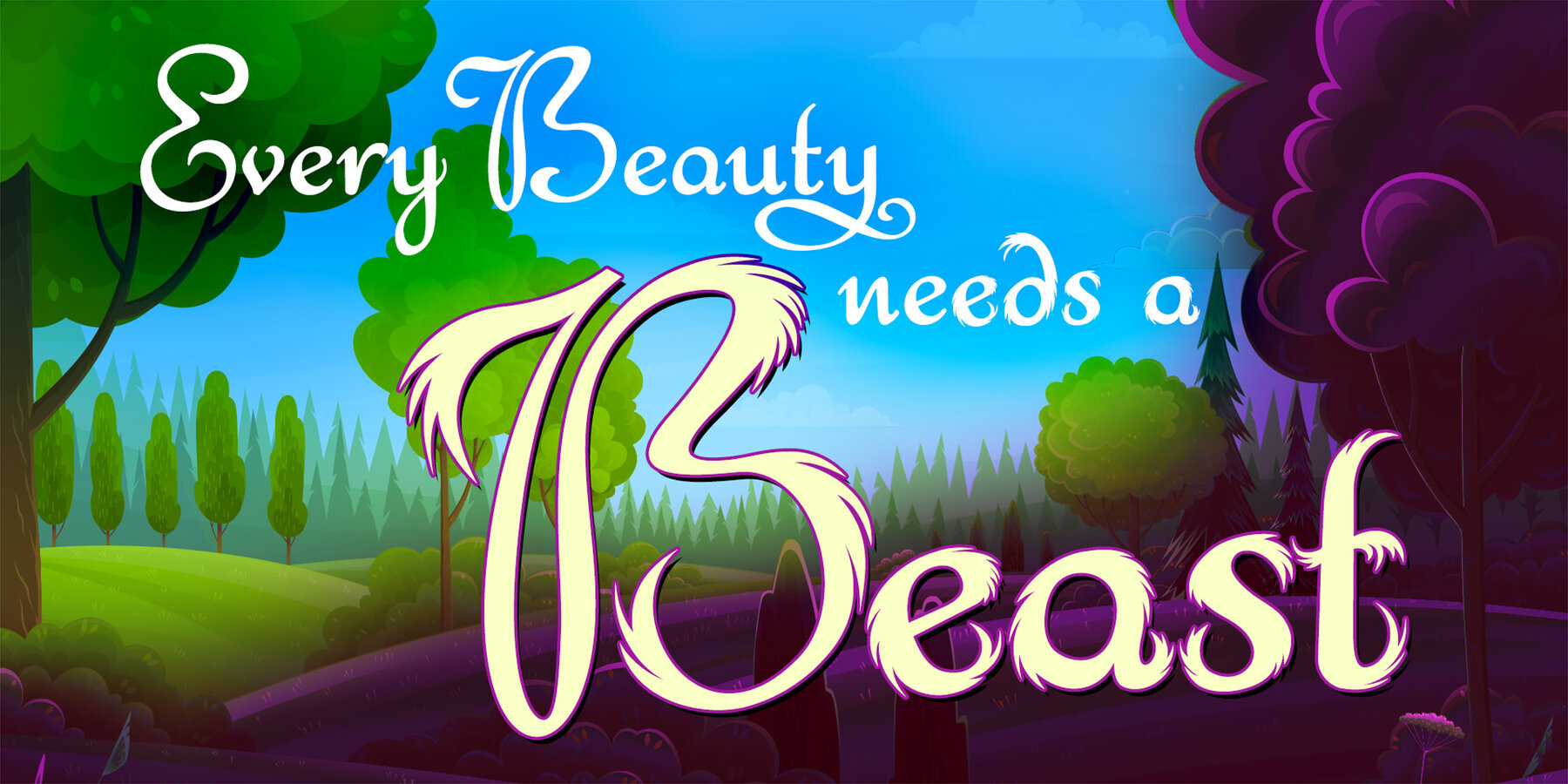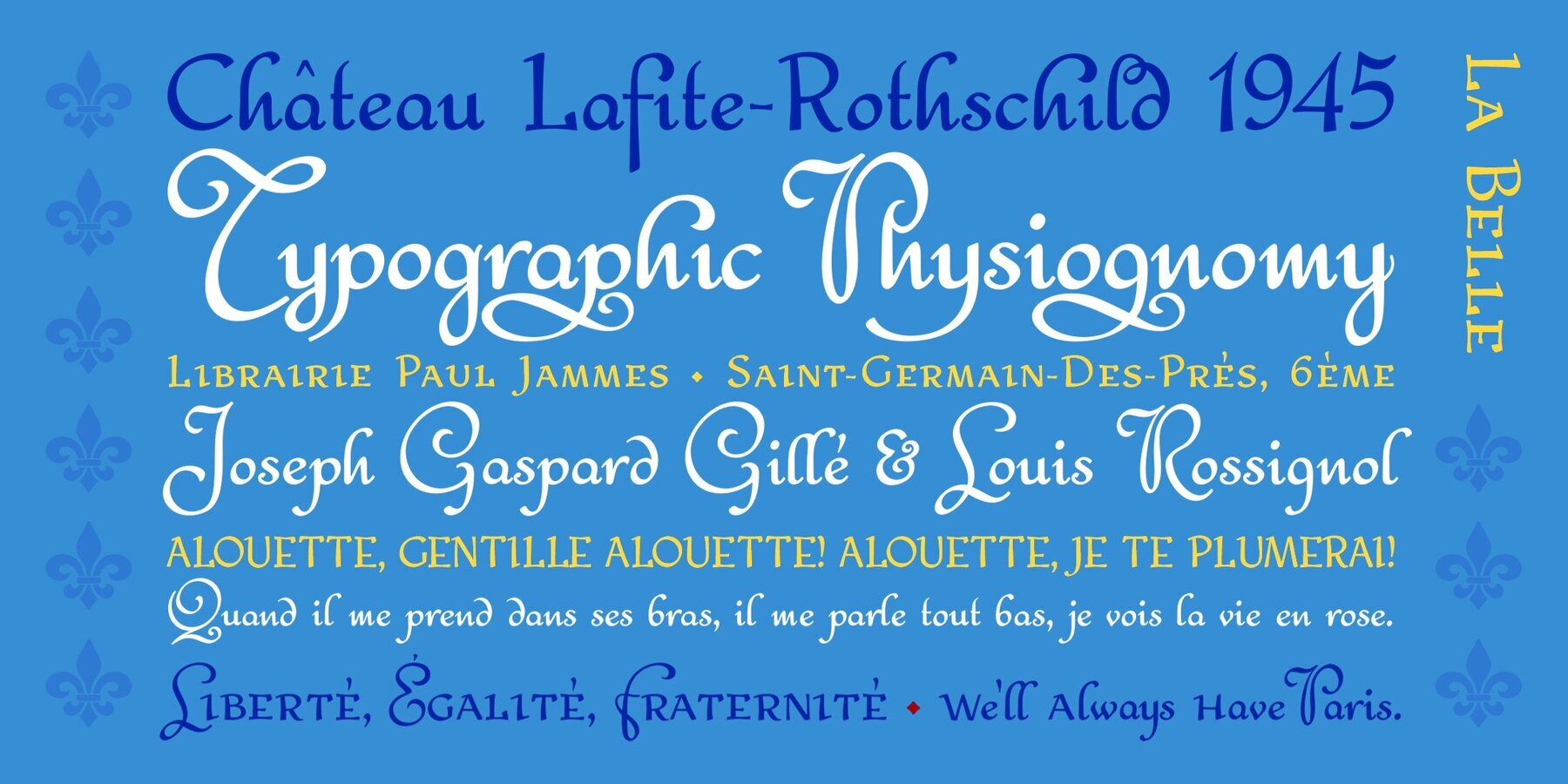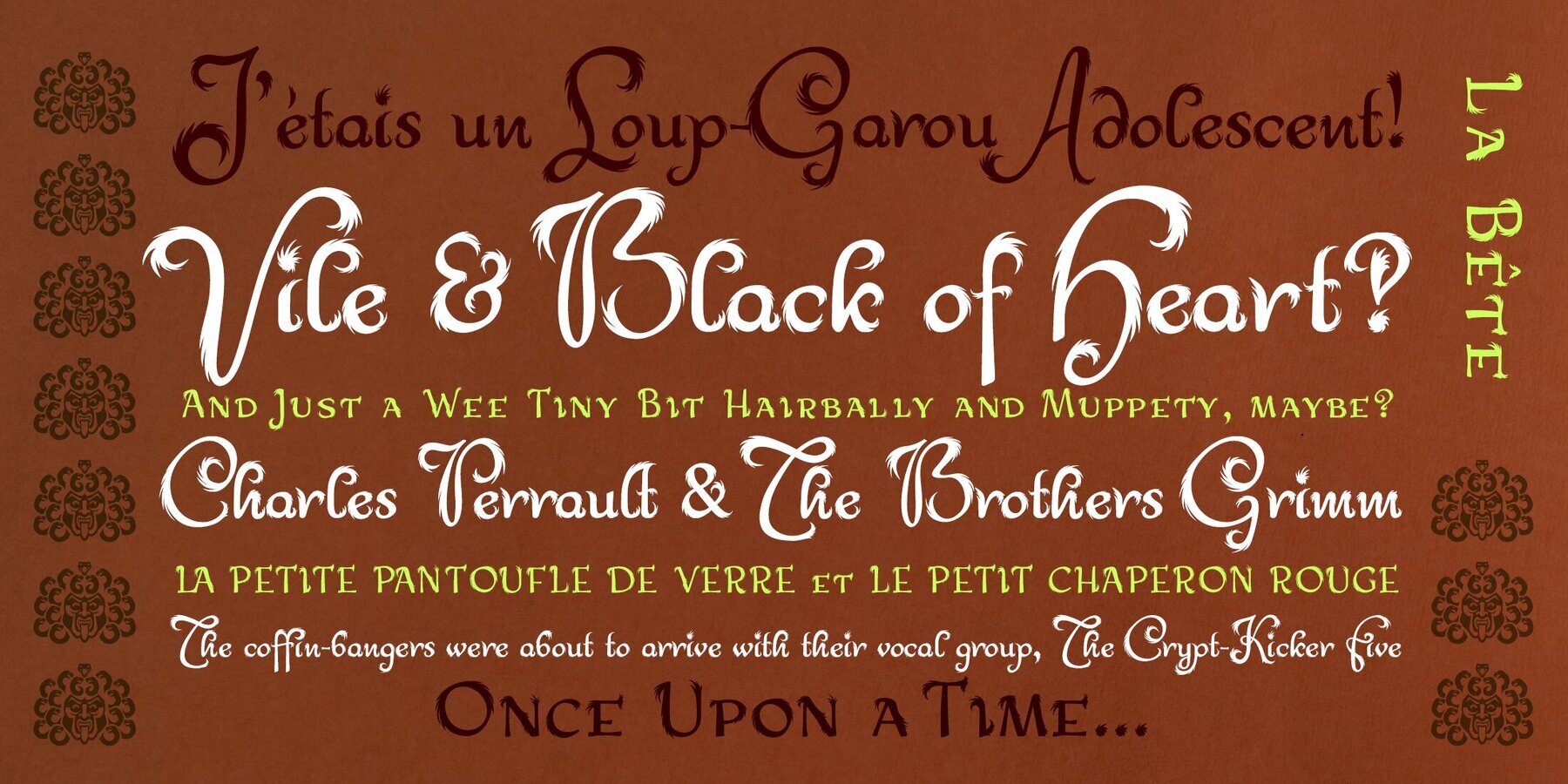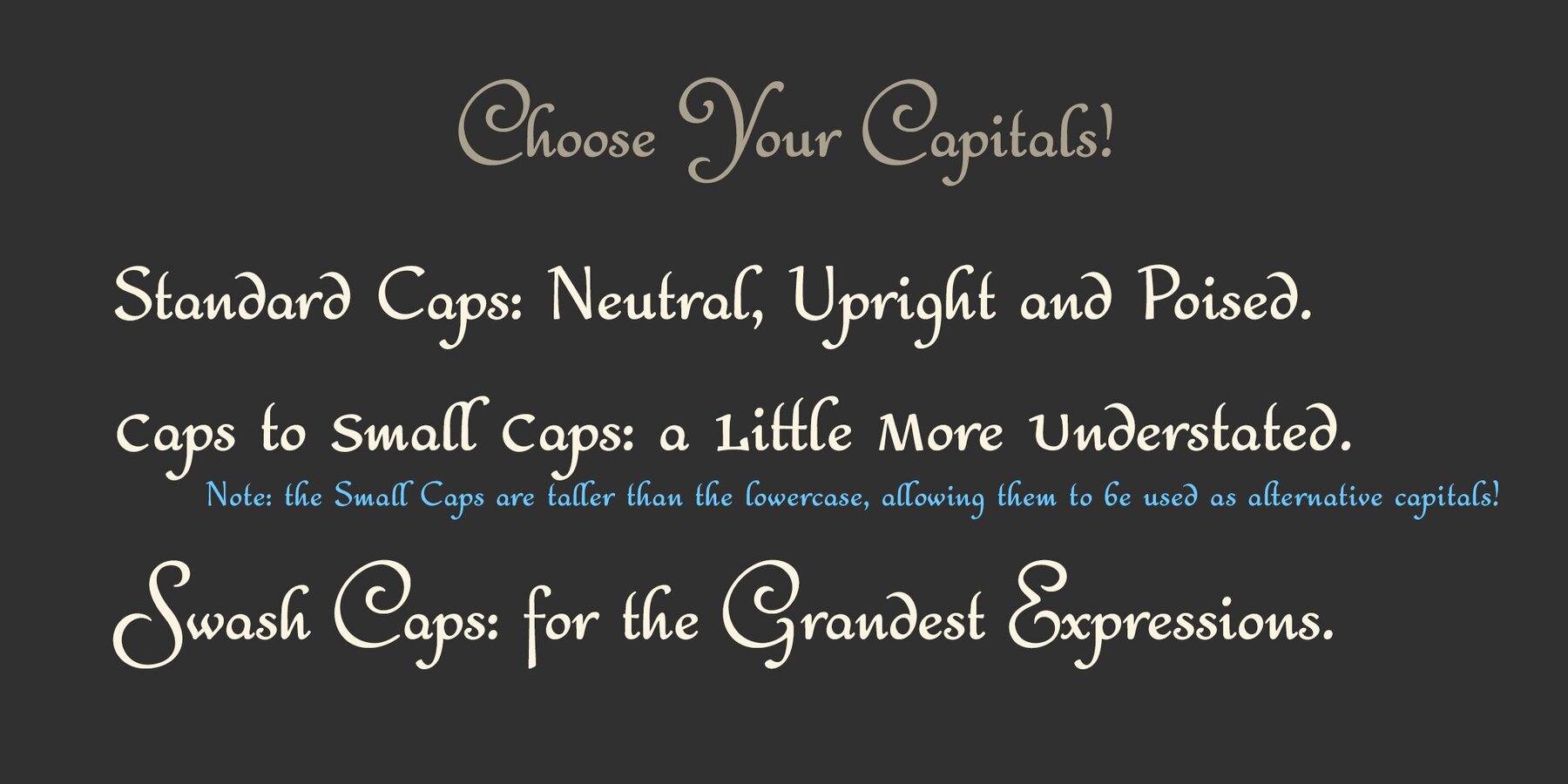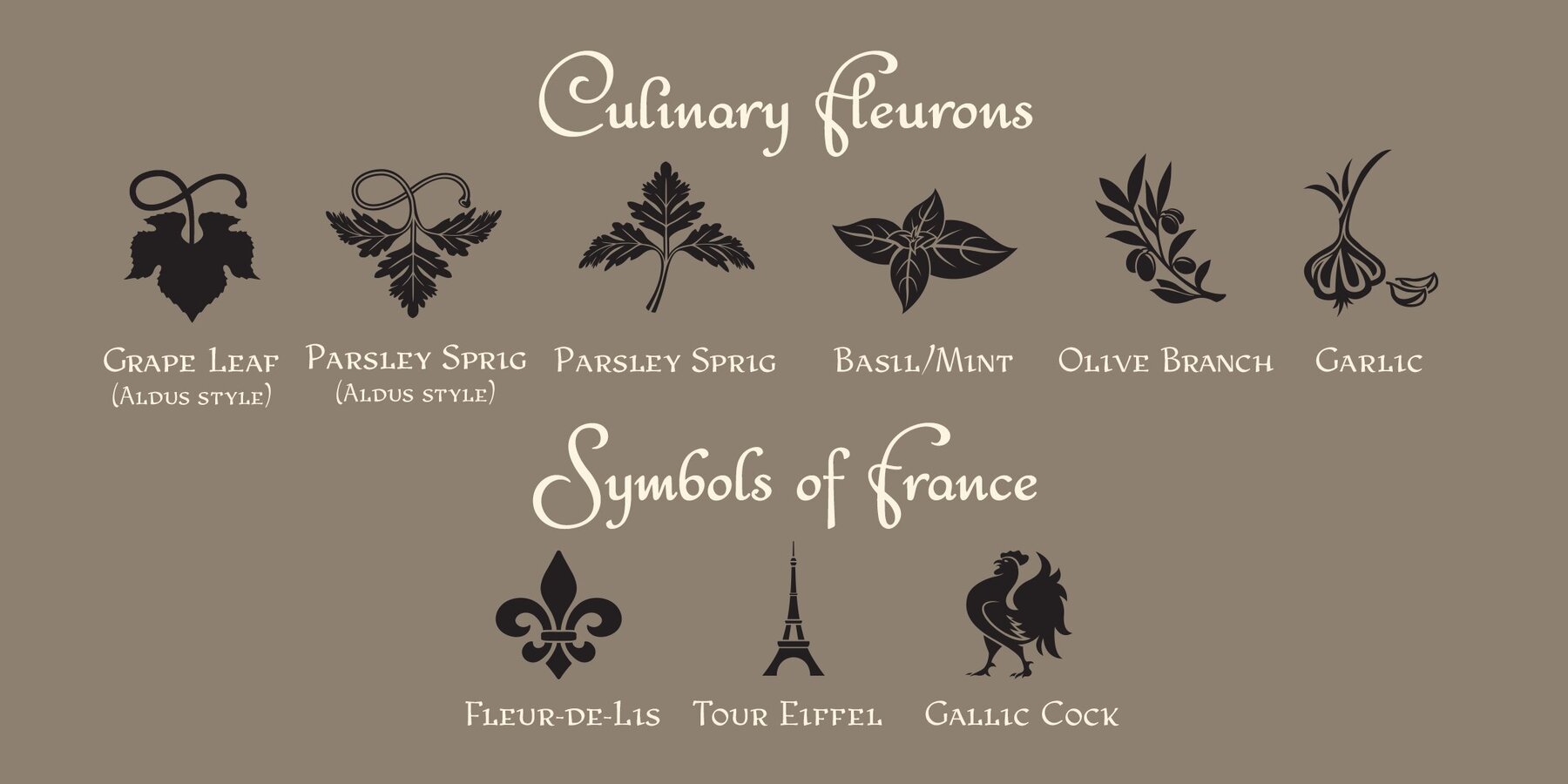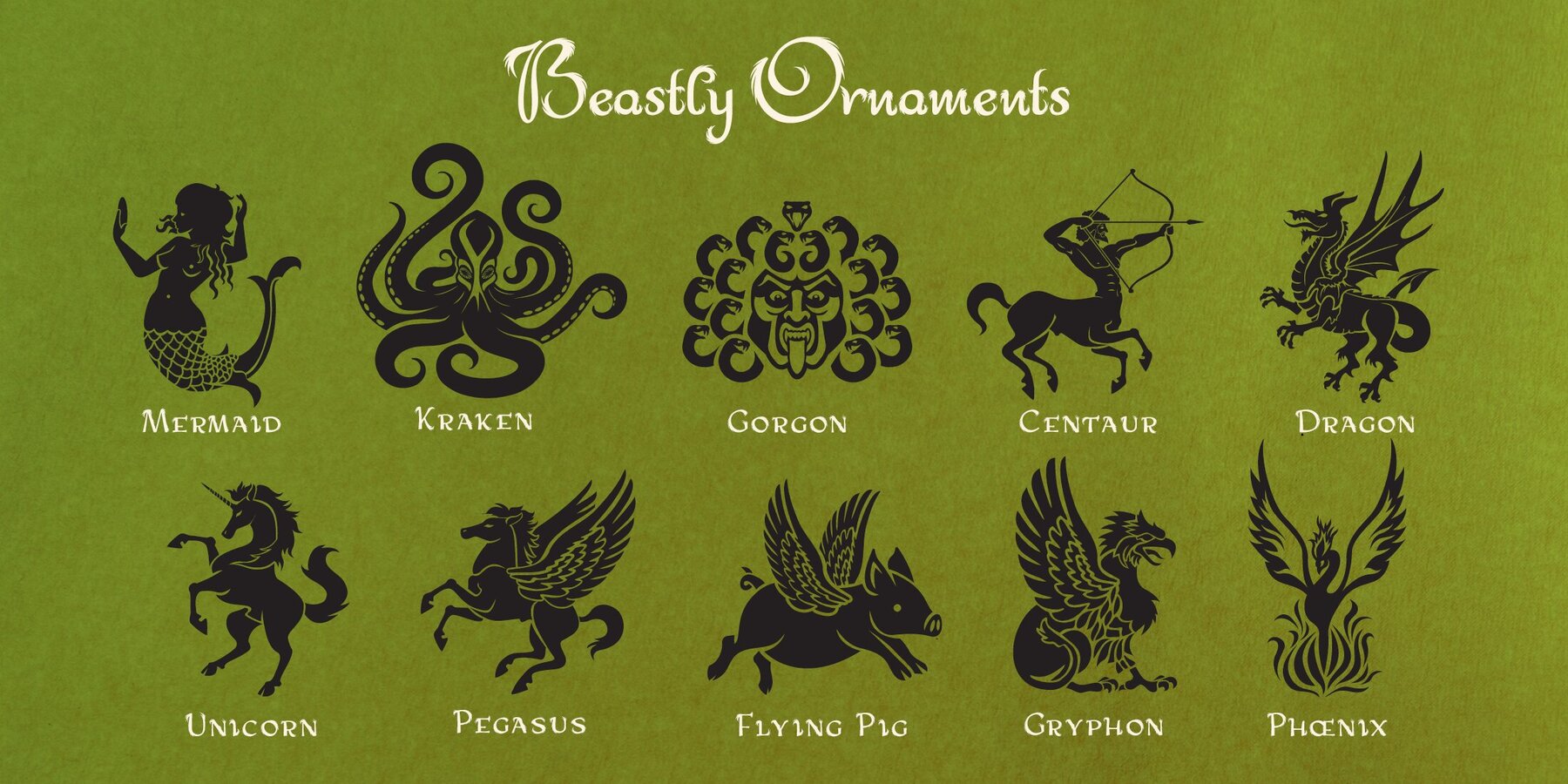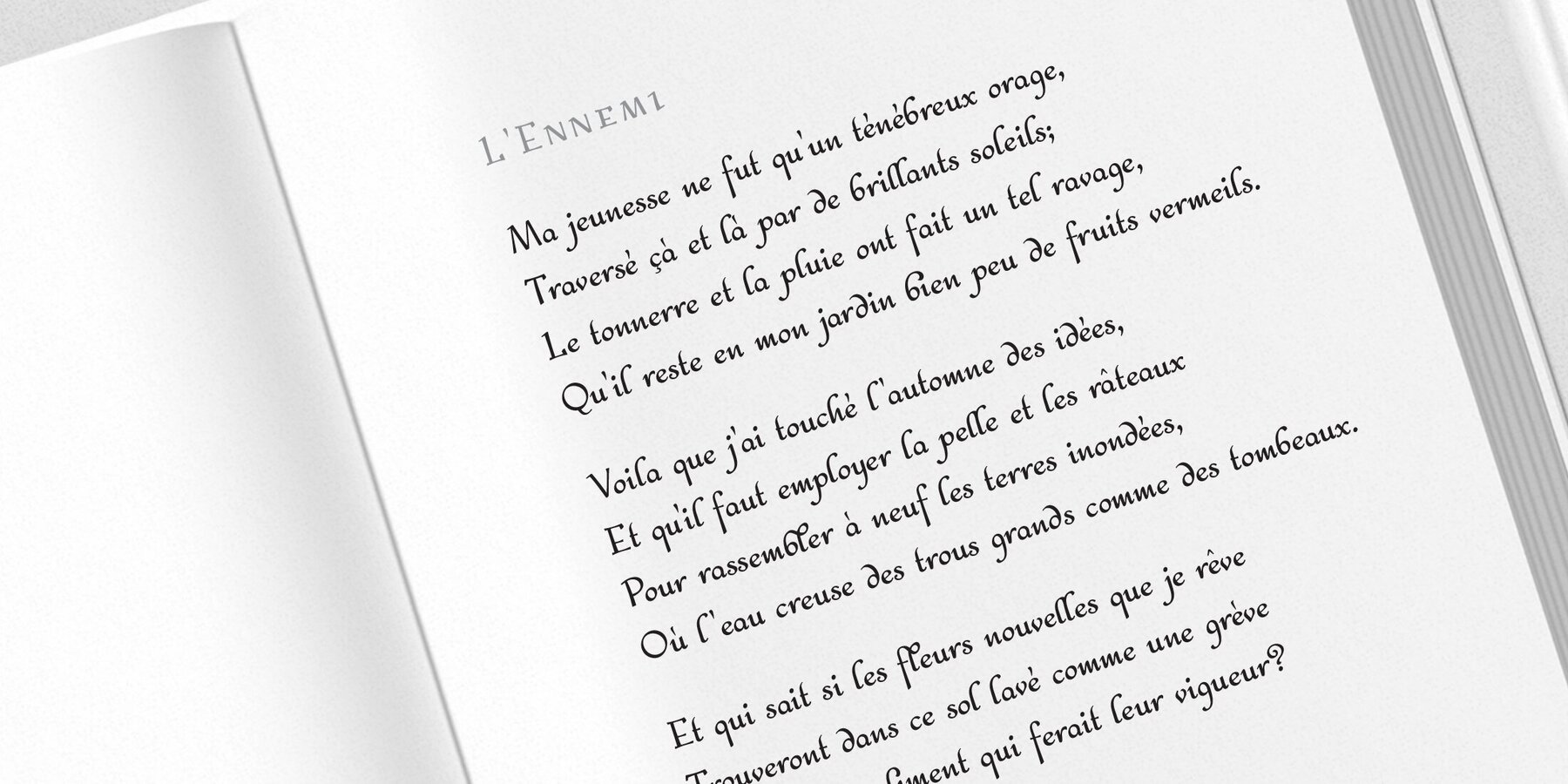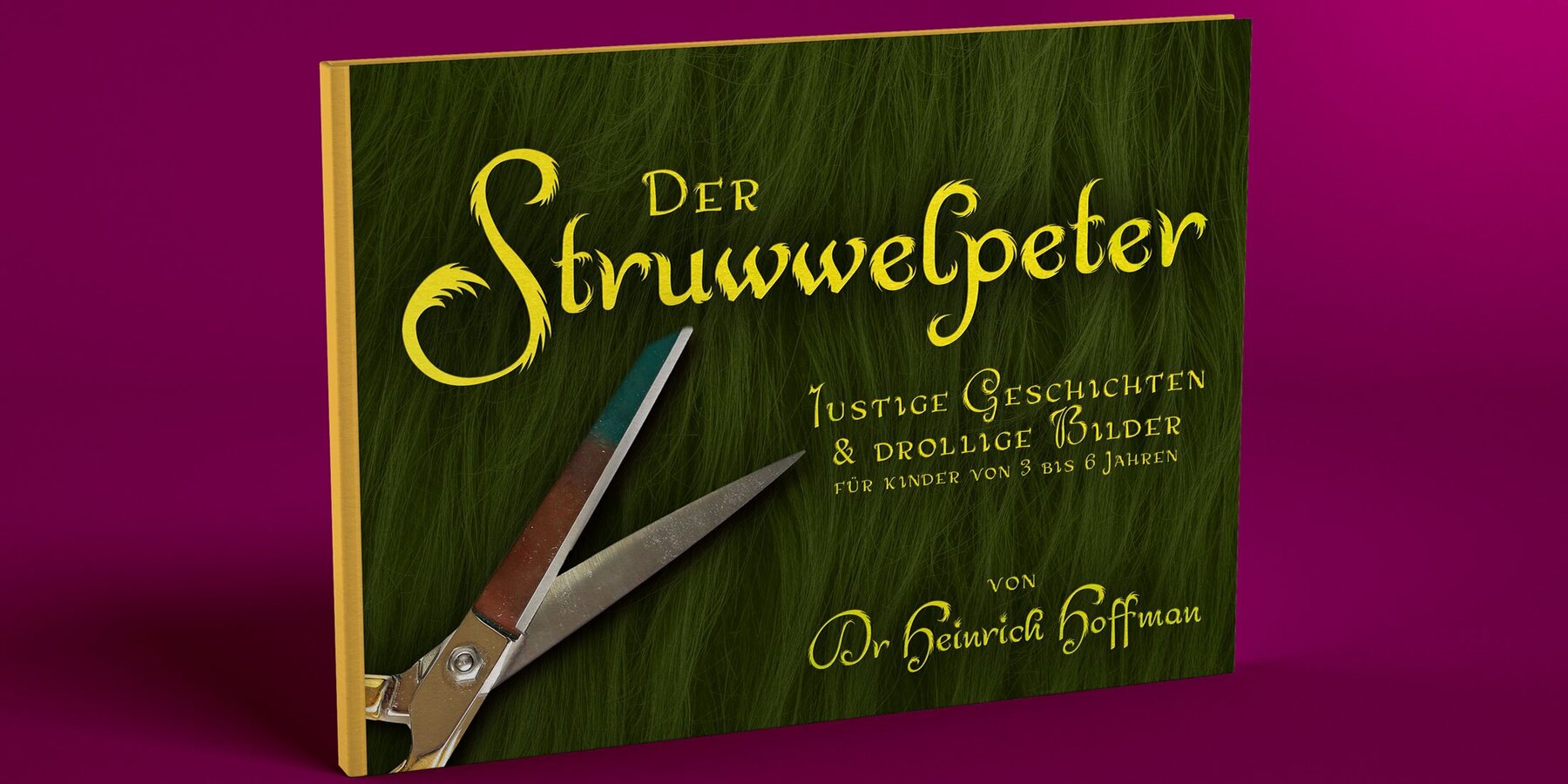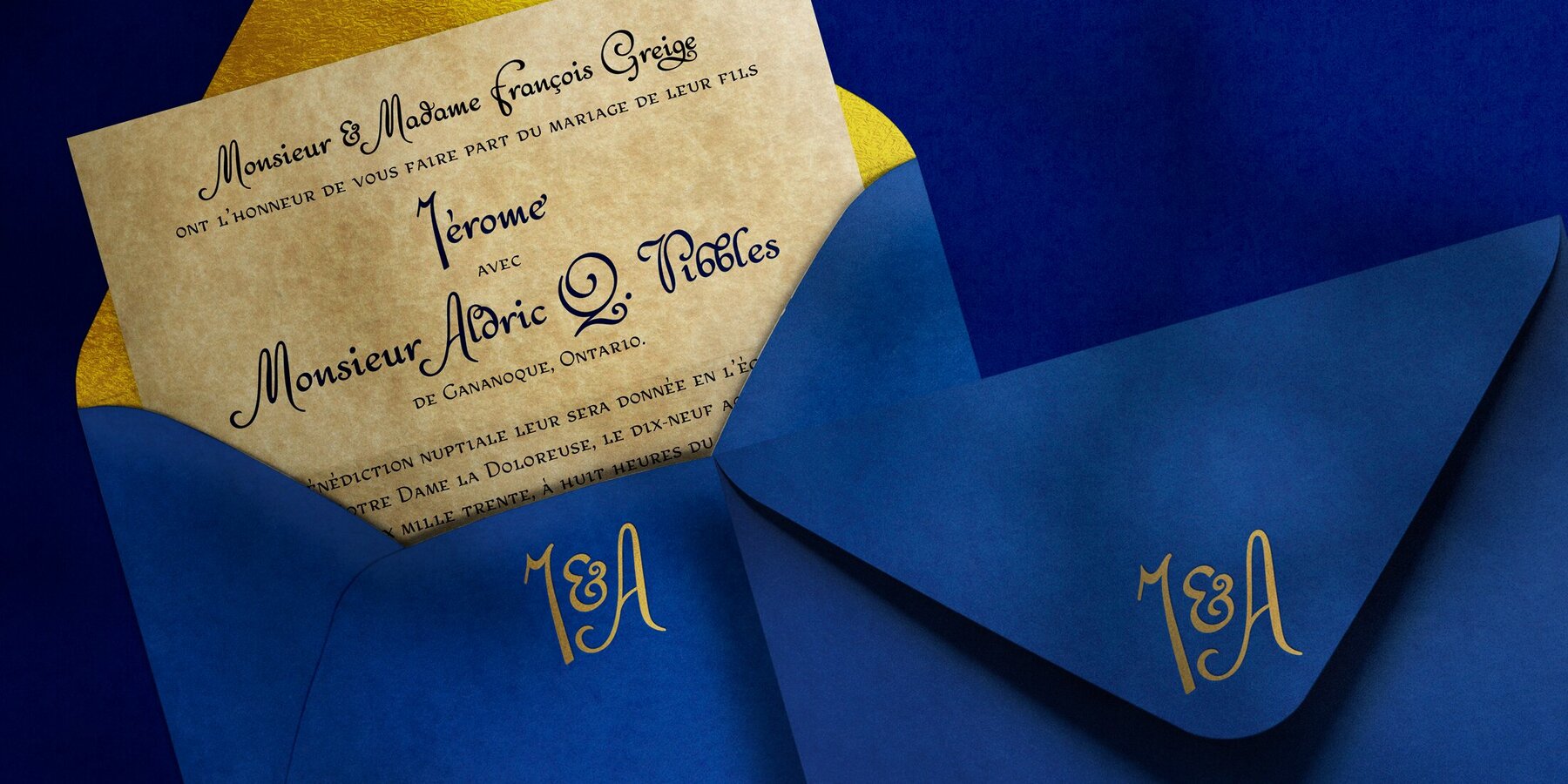
Bex Script Font
Bex Script is a riff on traditional French script forms: the Bâtarde, the Ronde, and the Coulée.
It has two versions: First, there’s La Belle, a straightforward, lovely interpretation of the script form, suitable for things like invitations, poetry and branding. La Belle’s evil twin is La Bête, a more whimsical (and considerably more hairy) version, great for anything that requires an elegant-but-beastly feel.
Bex is surprisingly versatile! With three optional capital forms (Swash, Caps, and Small Caps) all taller than the x-height, Bex has a variety of voices. A full small cap set and a full set of Swash Caps, plus a large complement of alternates, initial forms, terminal forms, and ligatures makes it customizable and… well, FANCY!
Additionally, both versions of Bex Script have a set of ten ornament glyphs. La Belle has a combination of fleurons on a culinary theme and symbols of France. La Bête has ten pseudoheraldic beasts that would feel at home at the top center of any whimsical letterhead.